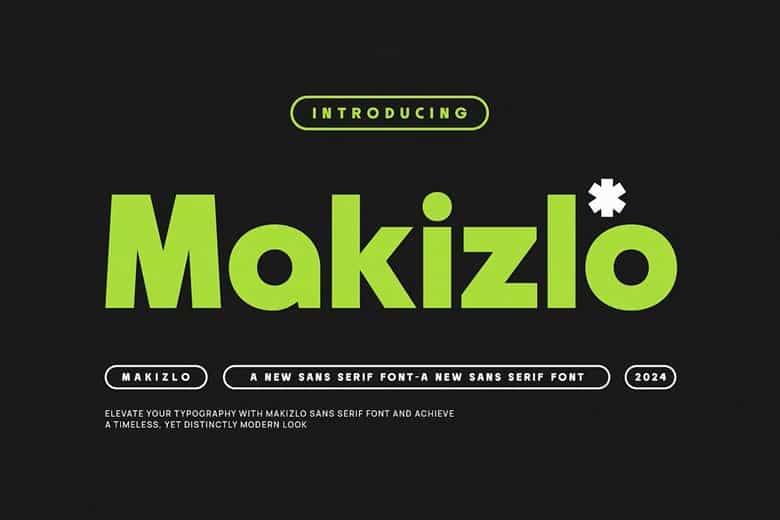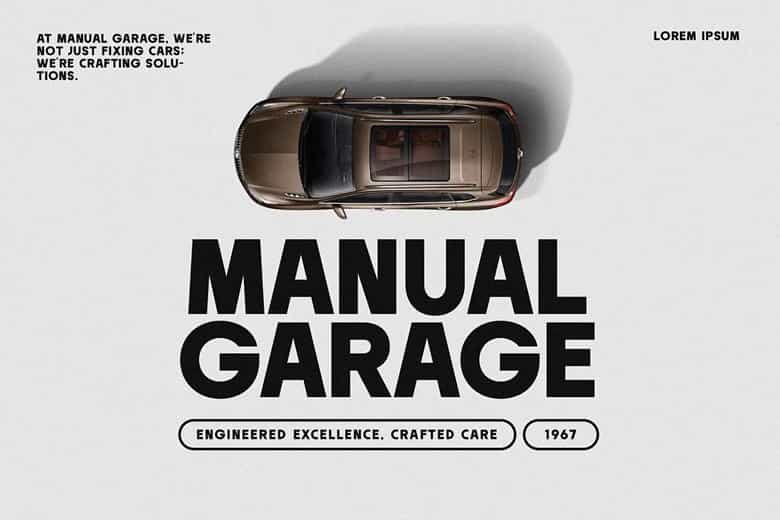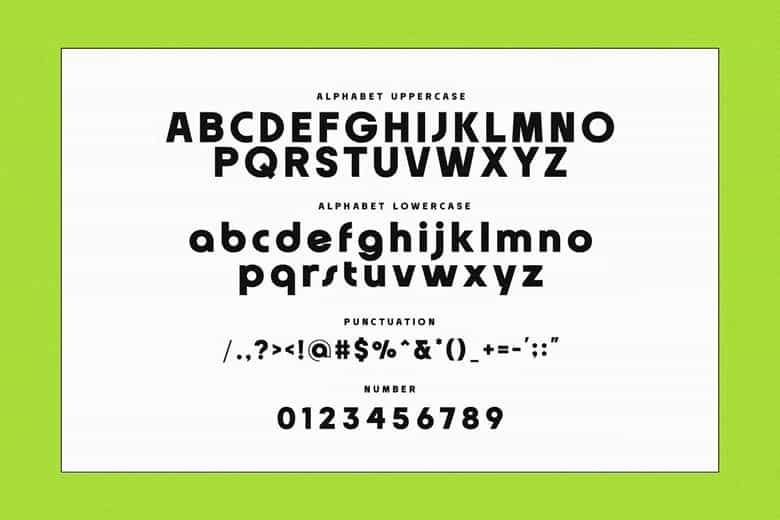
The Makizlo is new sans serif font with a bold weight to communicate a friendly and warm kind of expression. These letters have a clean rounded structure with good proportions which lend them to usage in both headlines and body text. The stroke of letters are even and uniform with little fluctuation of line thickness and spacing of characters is set for readability.